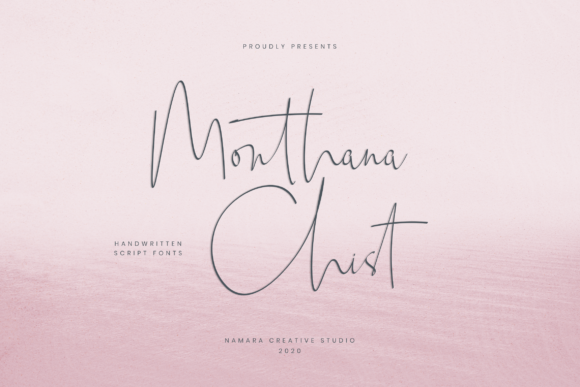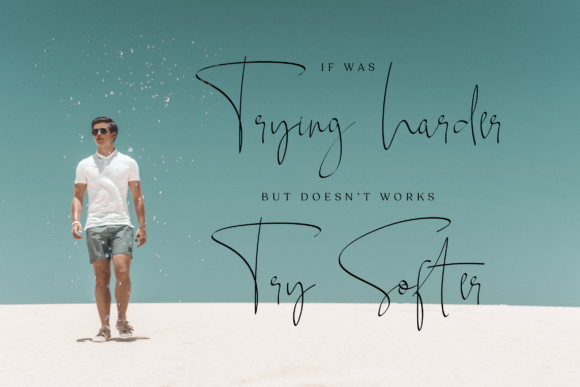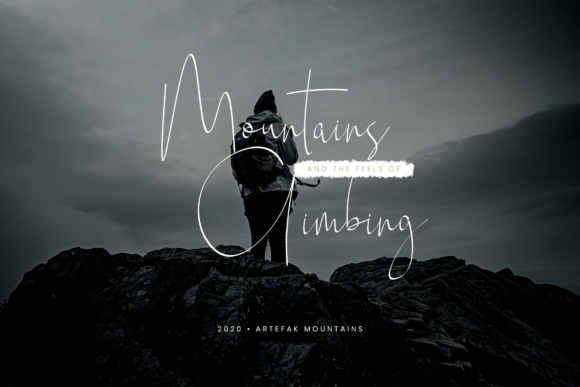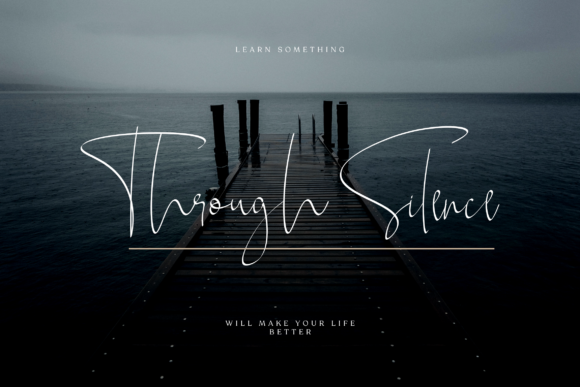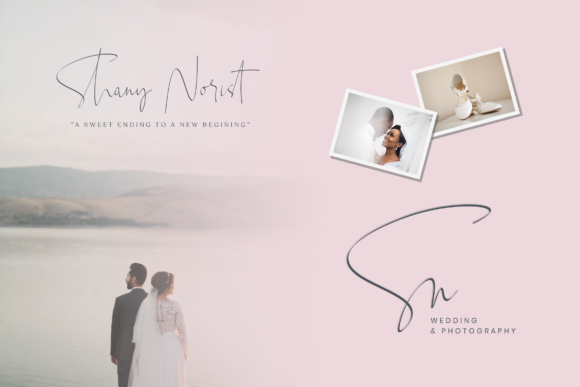
Monthana Chist Font
About Monthana Chist Font
Monthana Chist is a font that perfectly balances charm and elegance, making it a captivating choice for a wide range of design projects. Its stunning beauty enhances various creations, adding a touch of handwritten allure that captivates the eye.
For wedding invitations, Monthana Chist shines brightly. Its charming and elegant appearance sets the perfect tone for a romantic celebration, leaving a lasting impression on recipients.
Thank you cards become heartfelt expressions with Monthana Chist. Its handwritten essence conveys sincerity and warmth, making your messages feel personal and genuine.
When it comes to quotes and greeting cards, Monthana Chist becomes a powerful tool. Its smooth lines and flowing characters give your messages an artistic flair, making them stand out beautifully.
For logos and business cards, Monthana Chist elevates your brand to new heights. Its captivating handwriting reflects creativity and professionalism, making your brand memorable and distinguished.
Any design that calls for a handwritten touch finds perfection in Monthana Chist. From personalized stationery to social media graphics, the font adds a touch of elegance and allure that resonates with authenticity.
Moreover, Monthana Chist’s PUA encoding ensures easy access to all of its glyphs and swashes, allowing you to explore a wide range of creative possibilities. Unlocking its vast potential, you can create unique compositions that reflect your artistic vision.
The font’s varying baseline adds a touch of dynamics to your typography, giving your designs a sense of movement and vitality.
Incorporating Monthana Chist into your designs allows you to create stunning and eye-catching pieces. Its elegance and versatility inspire your creativity, making your most imaginative ideas come to life.
In summary, Monthana Chist is more than just a font; it’s an embodiment of charm and elegance. Embrace its beauty and notice how it enhances wedding invitations, thank you cards, quotes, greeting cards, logos, business cards, and every other project with a mesmerizing handwritten touch. Let Monthana Chist be the font that brings your designs to life, turning them into outstanding works of art that resonate with grace and allure. With Monthana Chist, your creativity knows no bounds, and your designs become true expressions of beauty and sophistication that leave a lasting impact on all who encounter them.